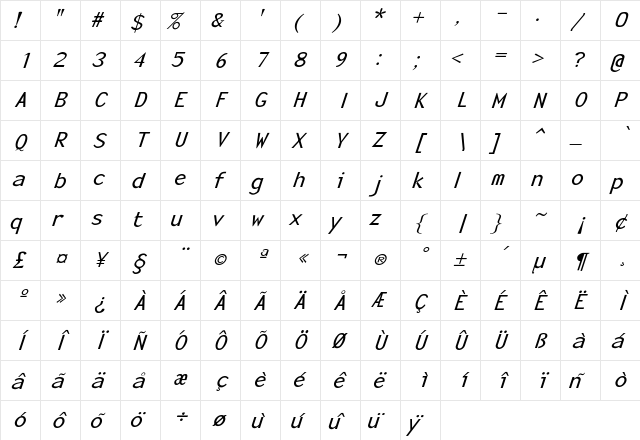
Eunuie Italic Regular
Design Context for Eunuie Italic Typeface
Eunuie Italic offers clean, dependable letterforms without strong stylistic allegiance, making it a practical choice for designers who need flexibility. The slanted form adds forward momentum and visual energy.
Pro Tip: Use Eunuie Italic for emphasis, pull quotes, and subheadings where its slanted energy can add rhythm to the layout.